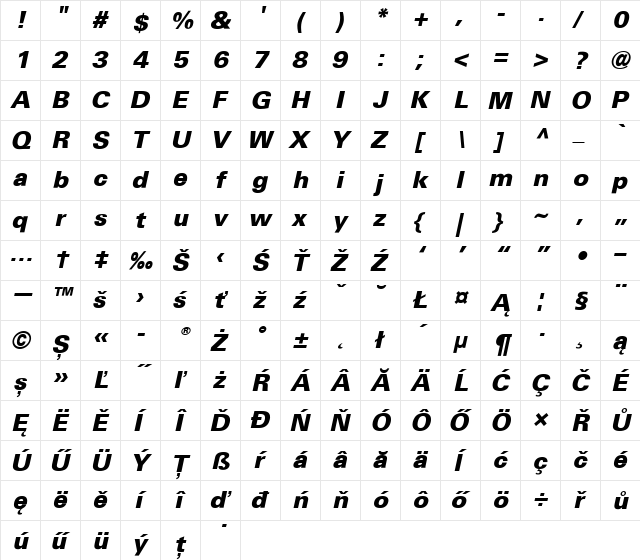
Univers CE 55 Medium Bold Italic Font Preview
Design Context for Univers CE 55 Medium Typeface
Univers CE 55 Medium takes a measured approach to typography — its balanced proportions and neutral character make it a reliable workhorse for both digital and print work. The dynamic lean of this cut emphasises speed and emphasis in any layout. Its bold stroke weight gives it real presence on the page.
Pro Tip: Try Univers CE 55 Medium for annotation and caption copy alongside an upright companion — the contrast in angle creates a dynamic but ordered typographic system.